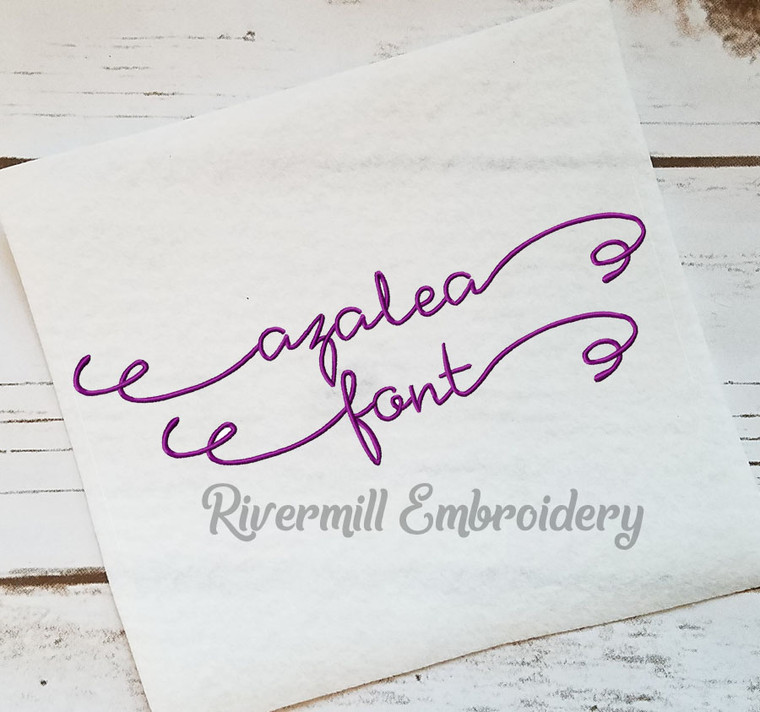
Azalea Machine Embroidery Font Alphabet
The set comes with upper and lower case letters, numbers 0-9, and alternate lower case letters with swirls (a left set and a right side set).